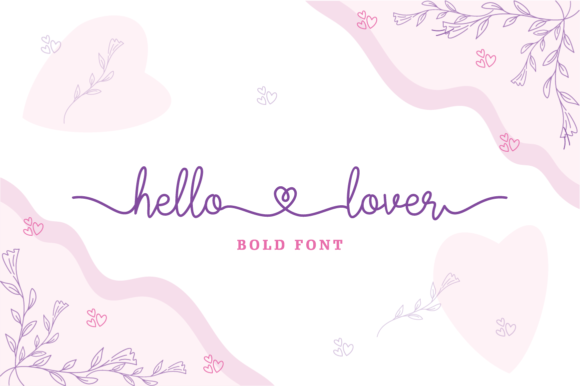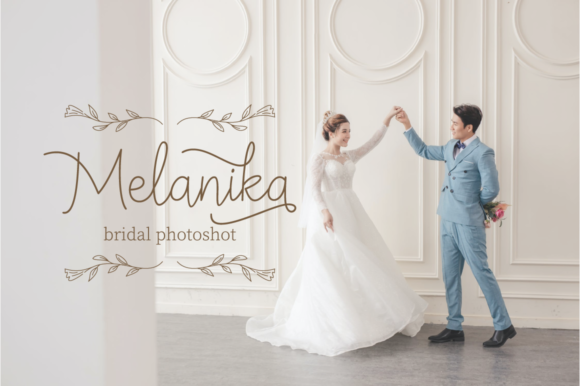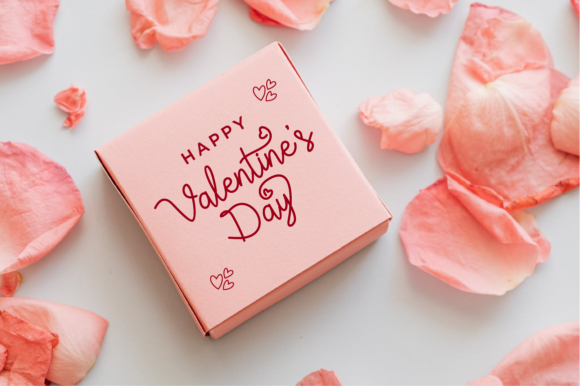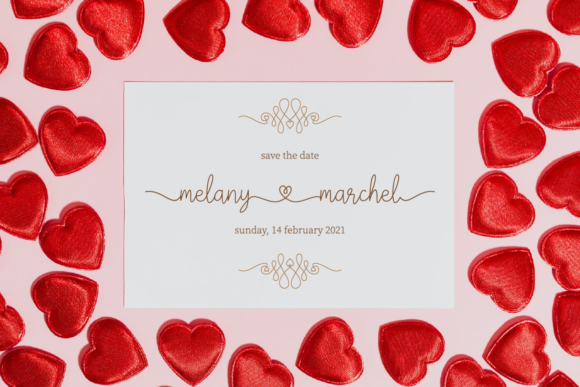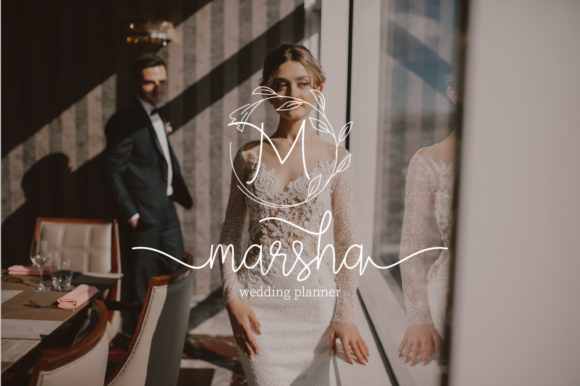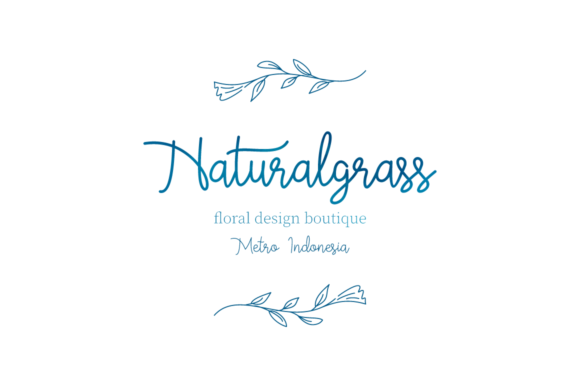
When Words Become Works of Art: The Magic of Hello Lover Font
Do you remember that moment when you finally found the perfect font to match your creative vision? It’s a feeling that’s hard to describe, but it’s a mix of excitement, relief, and pride. For designers, this moment is a regular occurrence, but it’s always a thrill. And that’s exactly what we’re going to talk about in this article – the Hello Lover Font, a refined, sweet, and graceful handwritten font that’s about to become your new best friend.
Hello Lover Font is more than just a font – it’s a tool that can elevate your designs and add a touch of romance to your projects. Whether you’re working on a greeting card, a headline, or a wedding invitation, this adaptable script font is guaranteed to make your creations stand out. With its wide range of applications and PUA encoding, you’ll have access to all the beautiful glyphs and swashes you need to create stunning designs.
Hello Lover Font Key Features
- Font Family: Hello Lover Font is a unique, hand-drawn script font designed to add a touch of elegance and sophistication to any design project.
- Unique Characteristics: The Hello Lover Font features a distinctive, handwritten style with flourishes and connecting strokes, giving it a personal and intimate feel.
Hello Lover Font Review
I recently had the chance to work with the Hello Lover Font, and I must say it’s a unique addition to any design project. ✨ The font’s bold and playful style is perfect for capturing attention and adding a touch of whimsy to your content. The font’s versatility also makes it suitable for a wide range of applications, from fashion and beauty to lifestyle and entertainment.
However, I did encounter some limitations while working with the font. ⚠️ For one, the font’s boldness can sometimes feel overwhelming, making it difficult to read in certain contexts. Additionally, the font’s complexity may not be suitable for all projects, particularly those that require a more minimalist or serious tone. Lastly, the font’s compatibility with older systems may be limited, which could be a concern for some designers.
Here are some key points to consider:
- Unique and playful style
- Perfect for fashion, beauty, and lifestyle projects
- May feel overwhelming in certain contexts
- Not suitable for all project types
- Potential compatibility issues with older systems
Overall, I would recommend the Hello Lover Font for projects that require a bold and attention-grabbing style. However, designers should carefully consider the font’s limitations before deciding to use it in their work.
Tips for Getting the Most Out of “Hello Lover Font”
To get the most out of “Hello Lover Font”, consider the following tips:
- Use the font for titles and headings to add a touch of elegance.
- Pair the font with a bold or sans-serif font for body text.